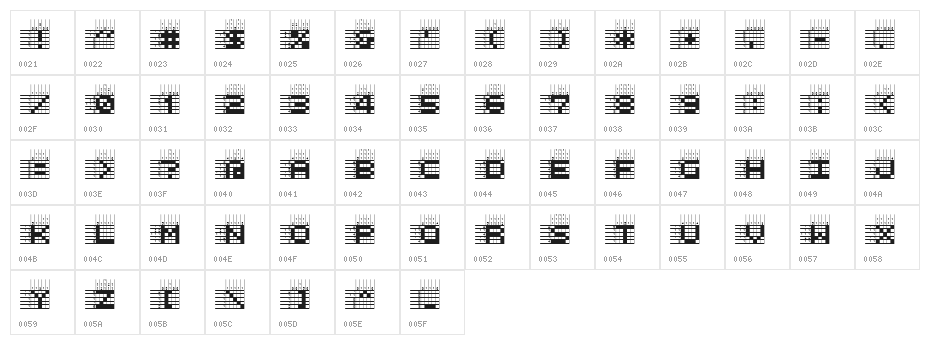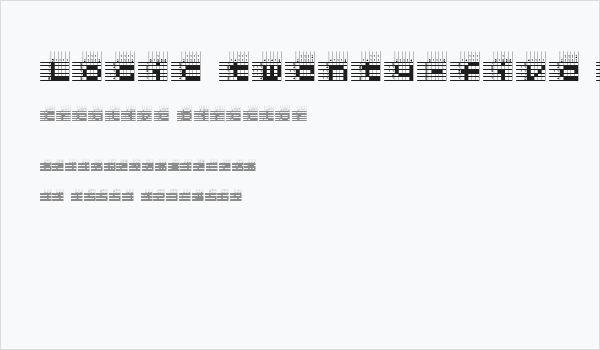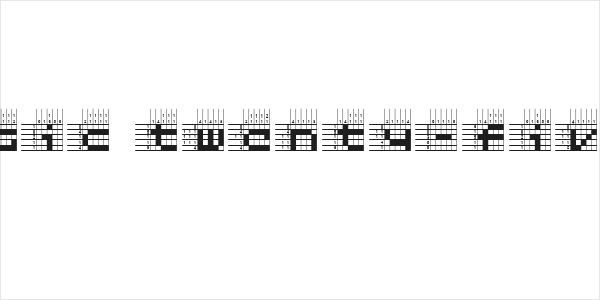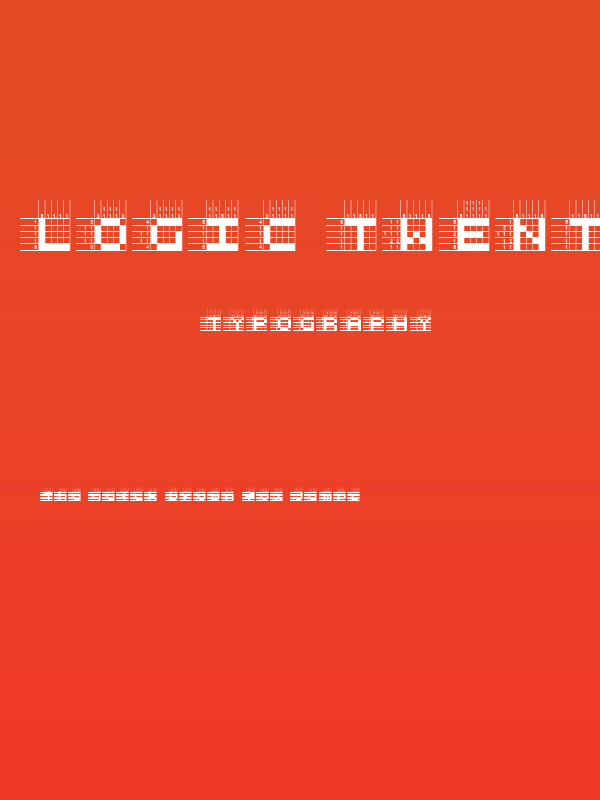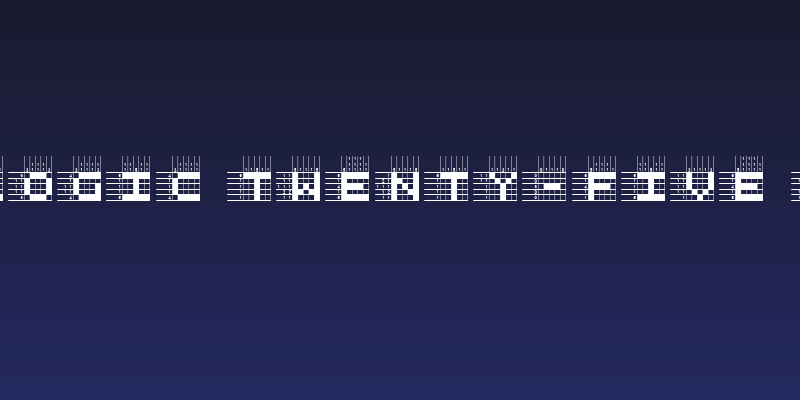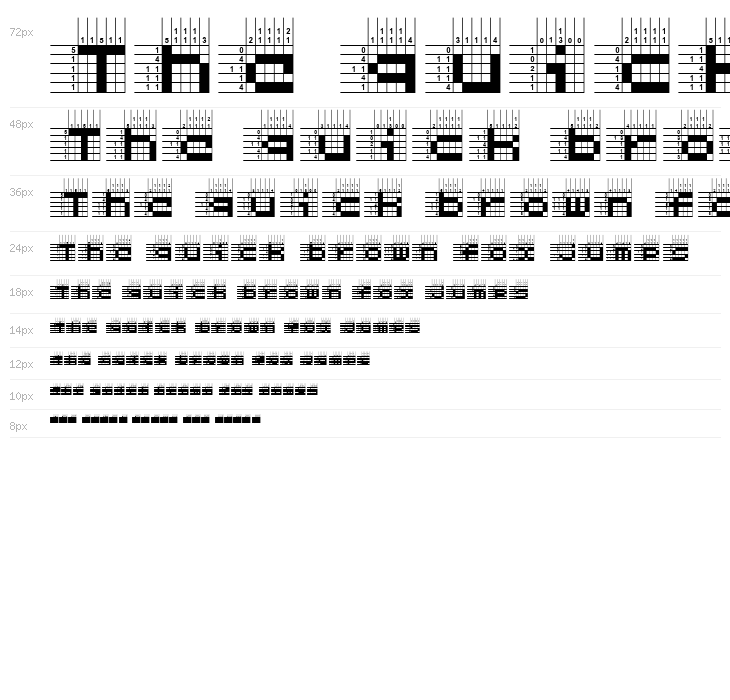
Logic twenty-five A Font
Logic twenty-five A Description
This font features a highly geometric and structured design, reminiscent of digital or pixel art. Each character is composed of a grid-like pattern with bold, black squares and lines, creating a distinct and modern appearance. The characters are uniform in height and width, giving the font a monospaced feel. The use of straight lines and right angles contributes to a mechanical and futuristic aesthetic. This font is particularly striking due to its unique combination of simplicity and complexity, making it suitable for digital displays or tech-themed projects. The overall style is both innovative and functional, with a clear emphasis on readability and precision.
| Use Case | Logos, Headlines, Digital displays |
| Proposed Projects | Ideal for digital displays, tech-themed branding, video game interfaces, and modern art installations. |